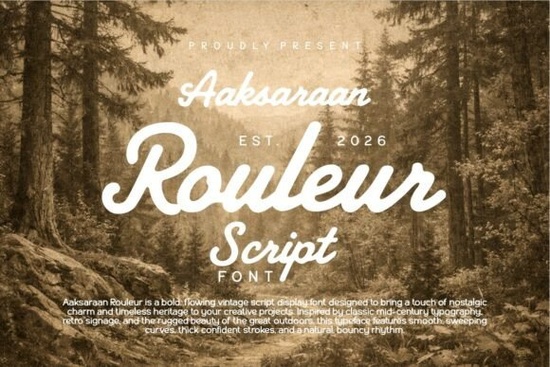
Aaksaraan Rouleur Font is a standout choice for anyone looking to add a vintage flair to their design work. This bold, flowing script font brings a sense of nostalgia and heritage that can elevate everything from logos to signage. Whether you're working on a retro-themed project or aiming for a classic aesthetic, Aaksaraan Rouleur offers the perfect blend of style and readability.
Designed with smooth, sweeping curves and thick, confident strokes, this font captures the essence of mid-century typography. Its natural, bouncy rhythm makes it ideal for creating eye-catching headlines and branding elements. The font’s seamless connections and retro character make it a go-to option for designers who want to craft something memorable without compromising on clarity.
What Makes Aaksaraan Rouleur Unique?
Aaksaraan Rouleur stands out because of its hand-crafted feel. It’s not just a font it’s a tool that can help bring your creative vision to life. The font’s design is inspired by classic American taverns, boutique hospitality brands, and rugged outdoor apparel. This means it’s versatile enough to fit a wide range of projects while maintaining a cohesive, nostalgic vibe.
Best Uses for Aaksaraan Rouleur
This font shines in a variety of applications. It works exceptionally well for retro logotypes, especially for businesses that want to evoke a sense of history and tradition. Apparel brands can use it to create striking labels or tags, while signage designers can rely on its boldness to make messages stand out.
For small businesses or creative hobbyists, Aaksaraan Rouleur can be a valuable addition to your design toolkit. It’s particularly useful for print-on-demand sellers who want to offer unique, vintage-inspired designs. The font’s legibility ensures that even when used in larger sizes, it remains easy to read without losing its charm.
How to Use Aaksaraan Rouleur Effectively
To get the most out of Aaksaraan Rouleur, consider pairing it with simpler fonts for contrast. For example, using it alongside a clean sans-serif typeface can create a balanced look that’s both stylish and functional. You can also experiment with different weights and spacing to suit your specific project needs.
When working with this font, keep in mind that its bold nature makes it best suited for headings or short phrases. Avoid using it for long blocks of text, as it may become difficult to read. Instead, focus on using it where it can make the biggest impact like in logos, banners, or social media graphics.
For those new to using script fonts, Aaksaraan Rouleur provides an accessible entry point. Its combination of style and usability makes it a favorite among both professionals and hobbyists. Whether you're working on a personal project or a client’s brand identity, this font can help you achieve a distinctive, retro-inspired look.
Before finalizing your design, take a moment to test Aaksaraan Rouleur in different contexts. Try it with various colors, backgrounds, and layouts to see how it performs. This will help you make informed decisions and ensure the font enhances your overall design rather than detracts from it.
If you're looking for more inspiration or additional fonts to explore, consider checking out Love Islan or Aaksaraan Rouleur. Each offers a unique approach to script typography, giving you more options to choose from based on your specific needs.
Remember, the goal of any design project is to communicate effectively while making a visual impact. Aaksaraan Rouleur helps you do just that by combining vintage charm with modern usability. Whether you're designing for a business, a personal brand, or a creative hobby, this font can be a valuable asset in your design arsenal.
Take the time to explore how Aaksaraan Rouleur can enhance your work. With its bold, flowing style and timeless appeal, it’s a font that can bring a fresh, nostalgic energy to your next project.